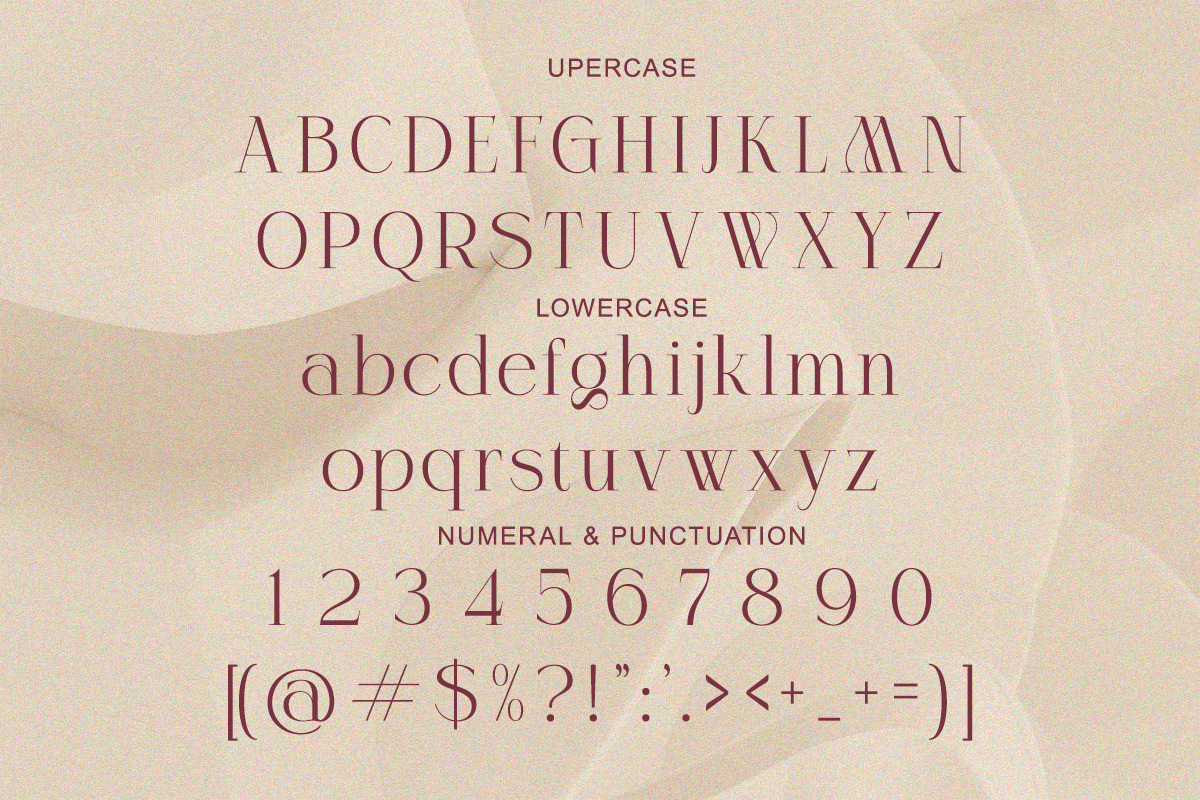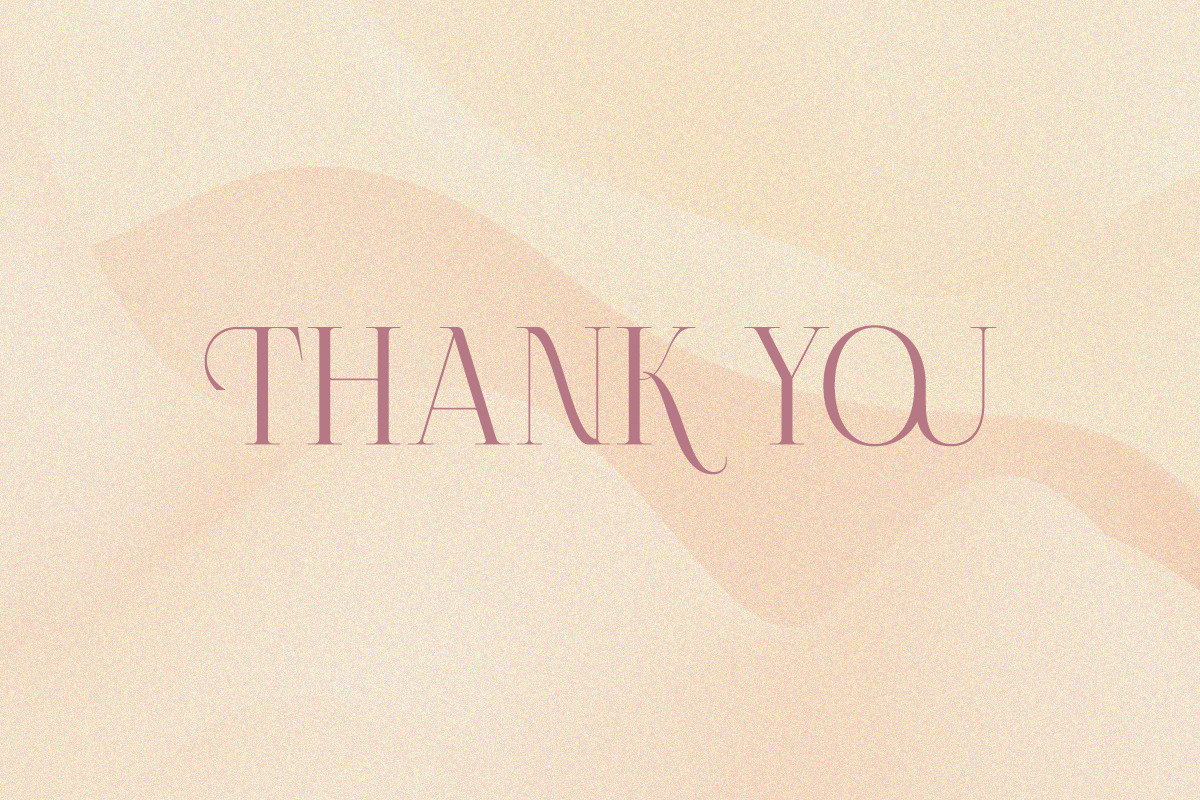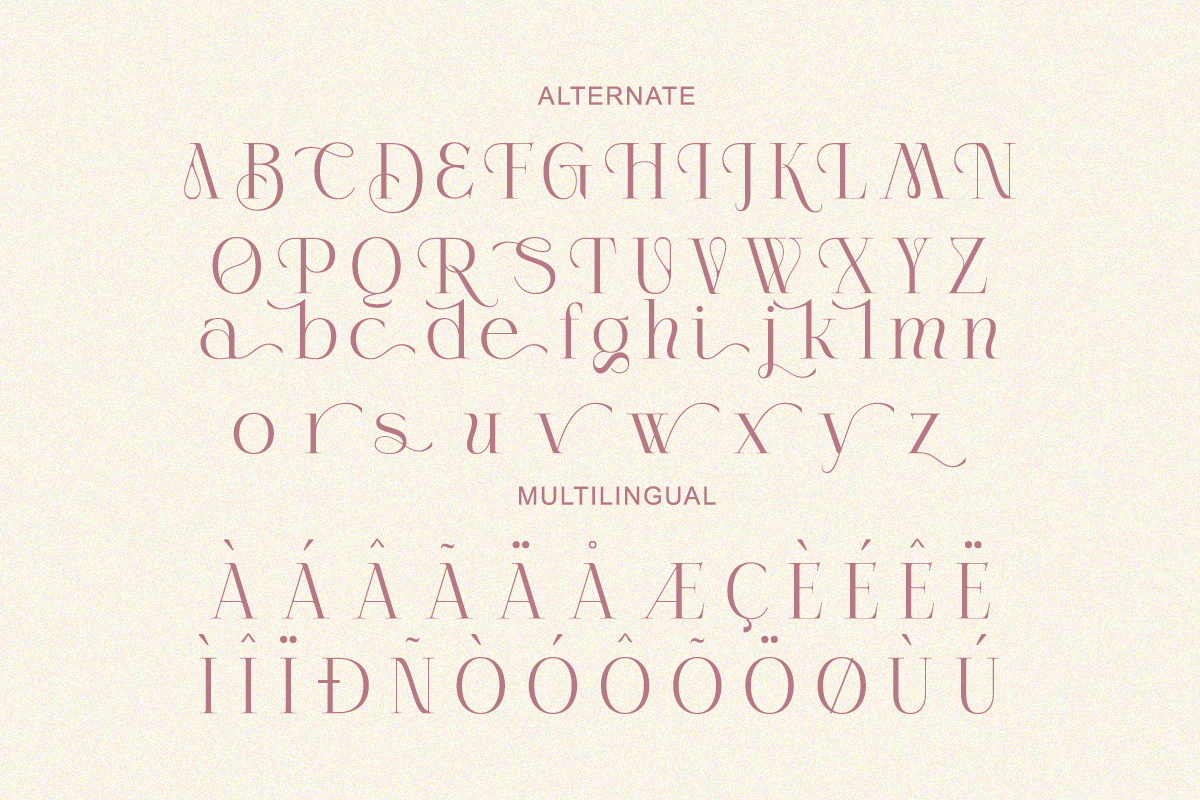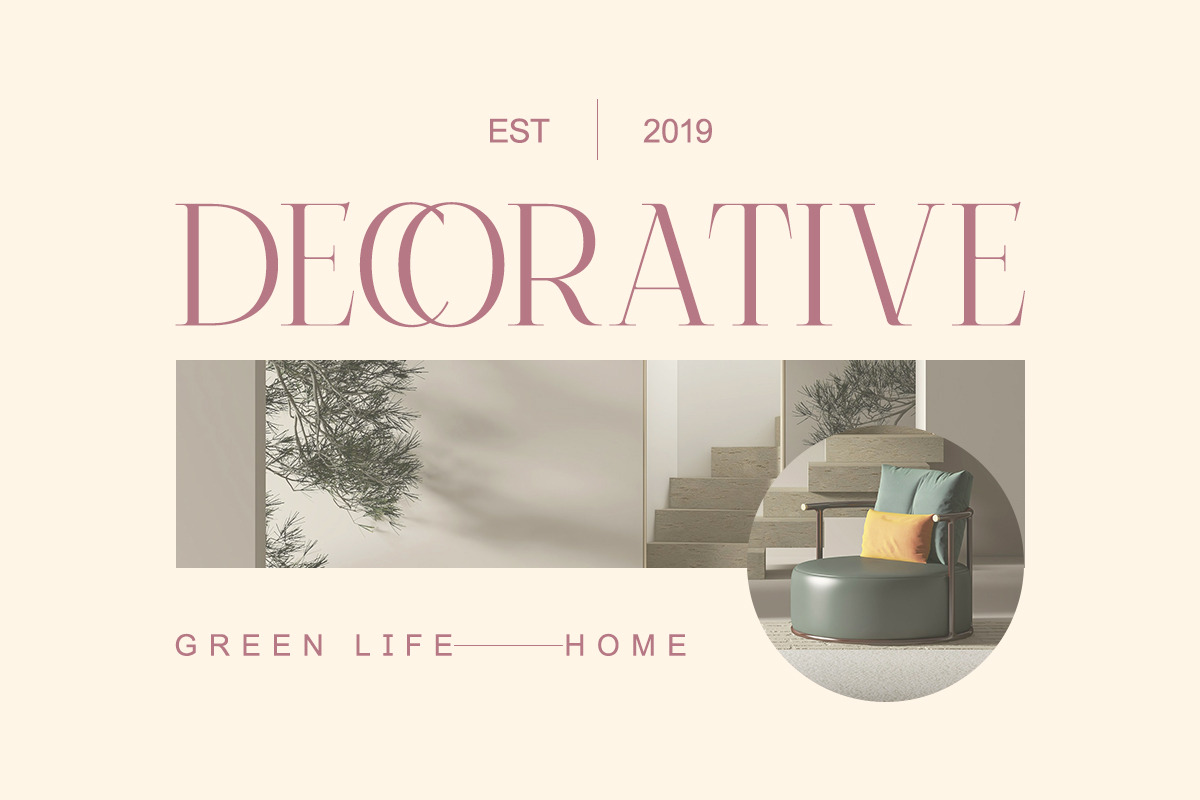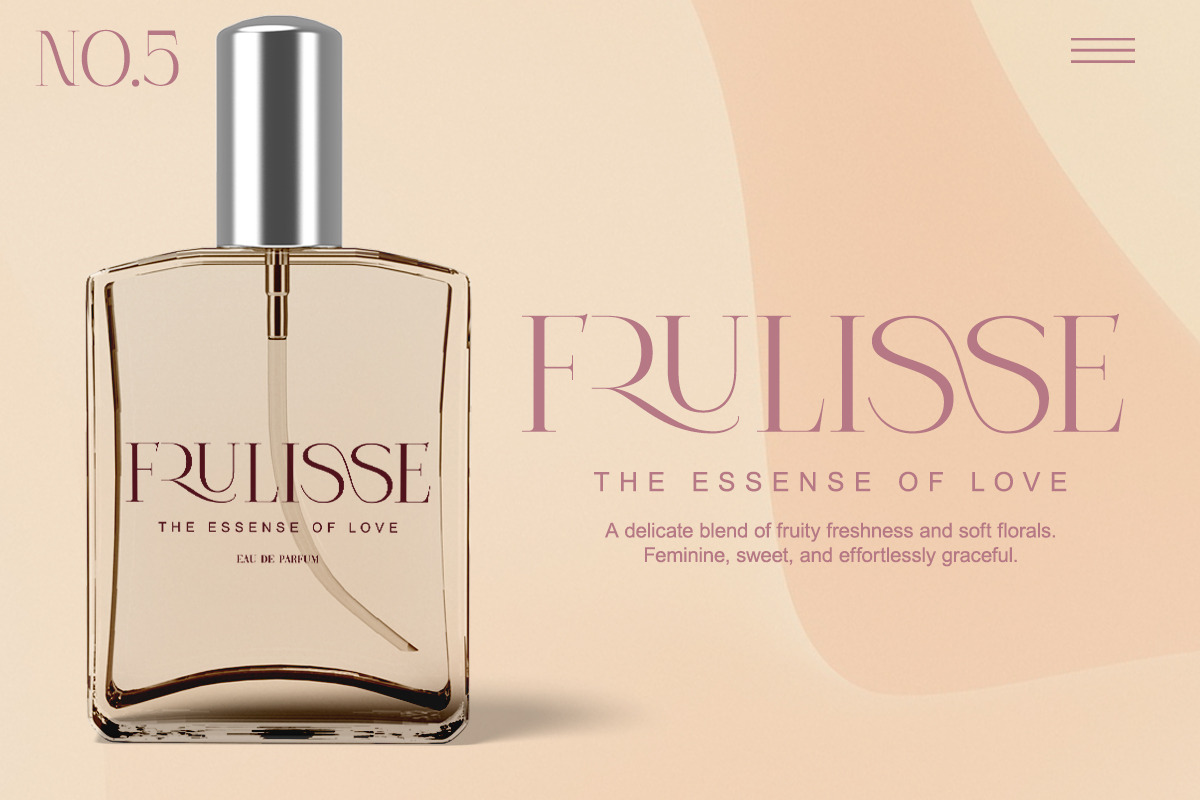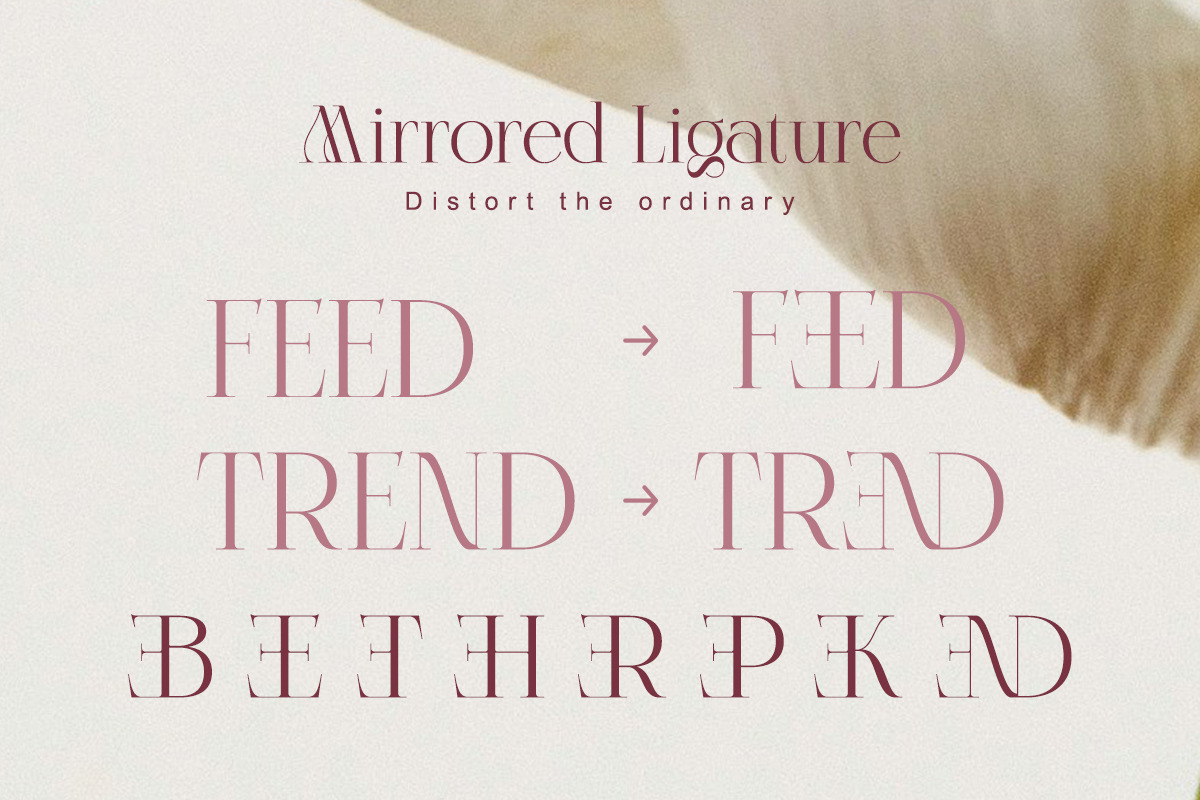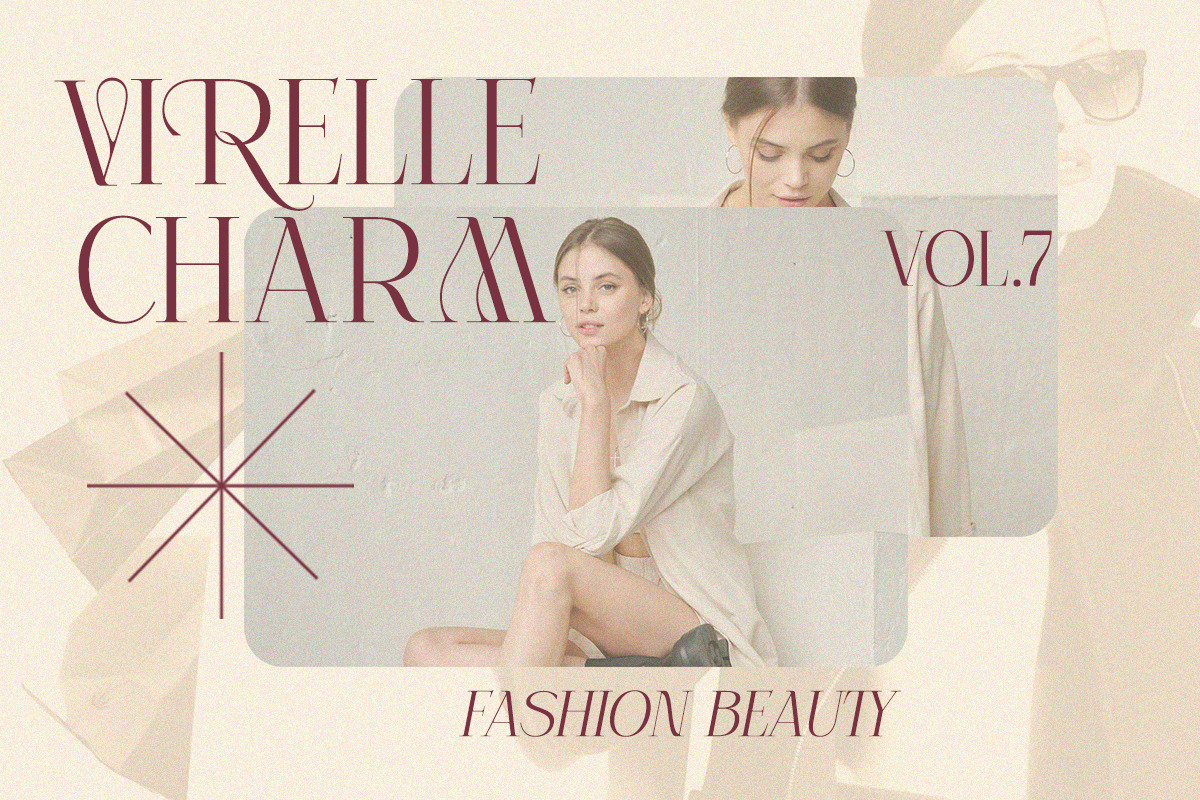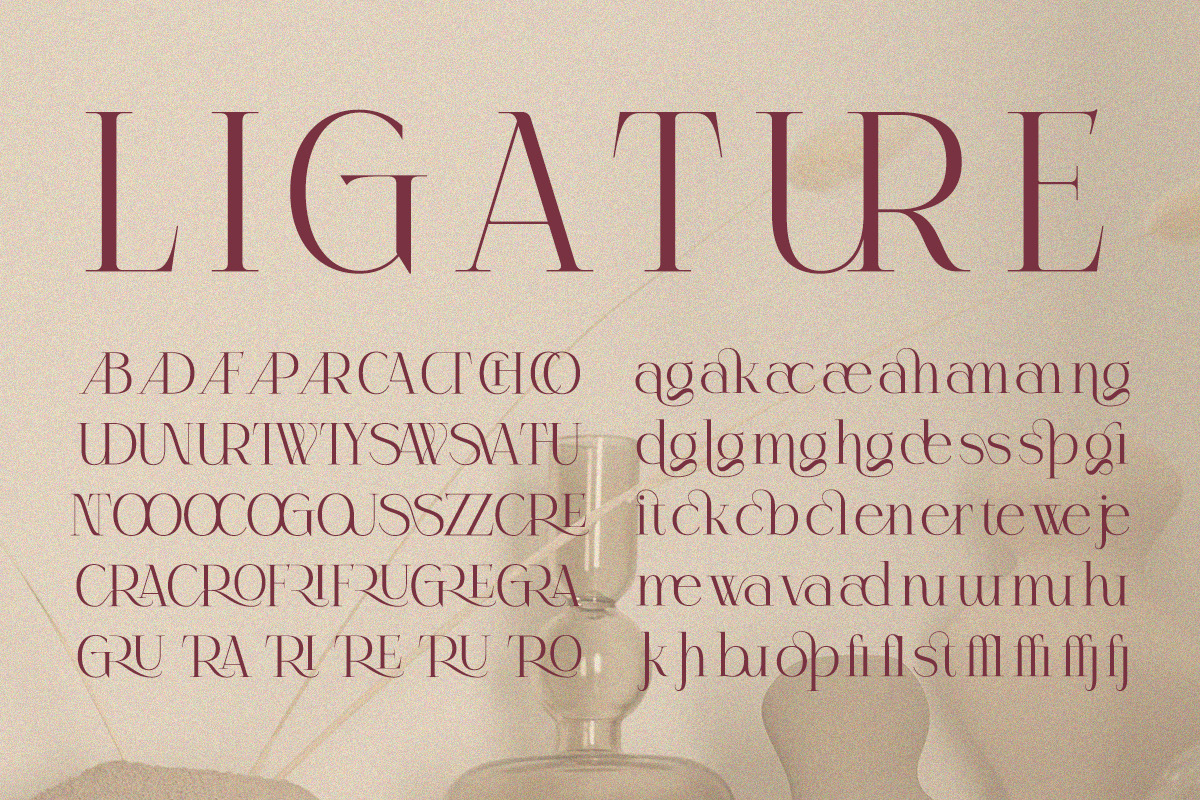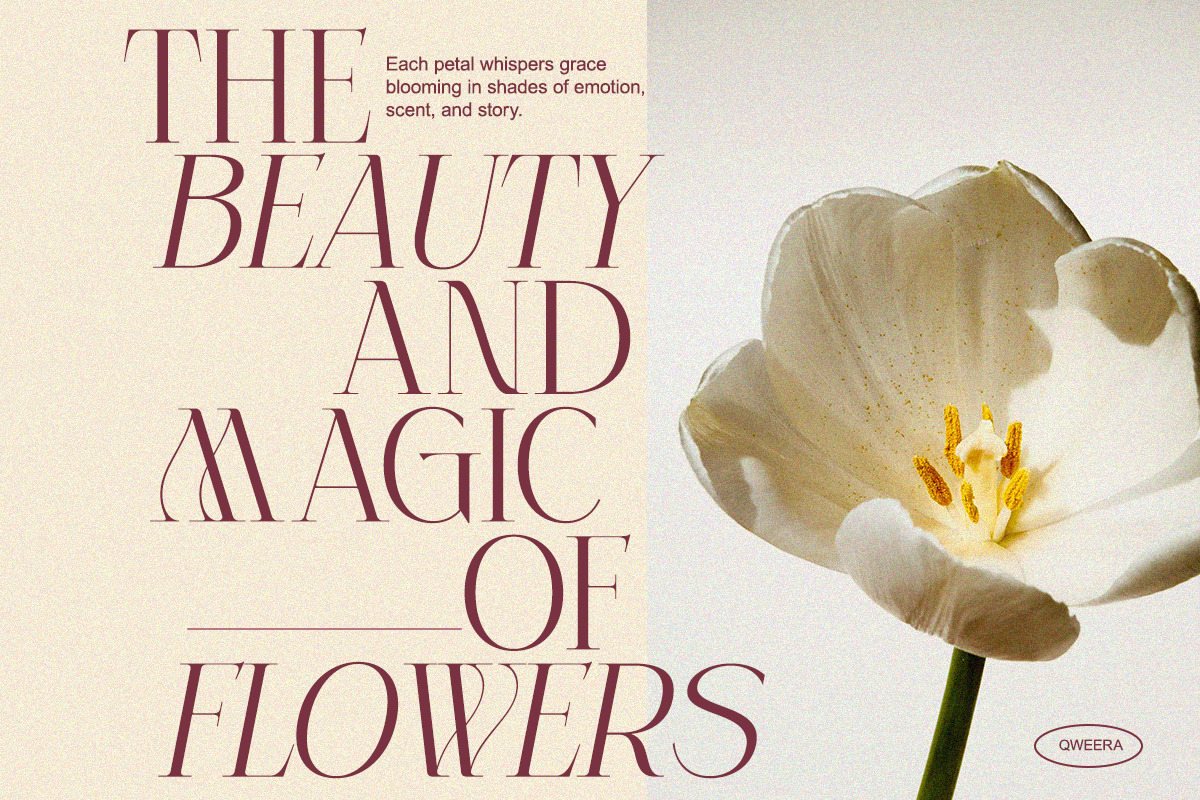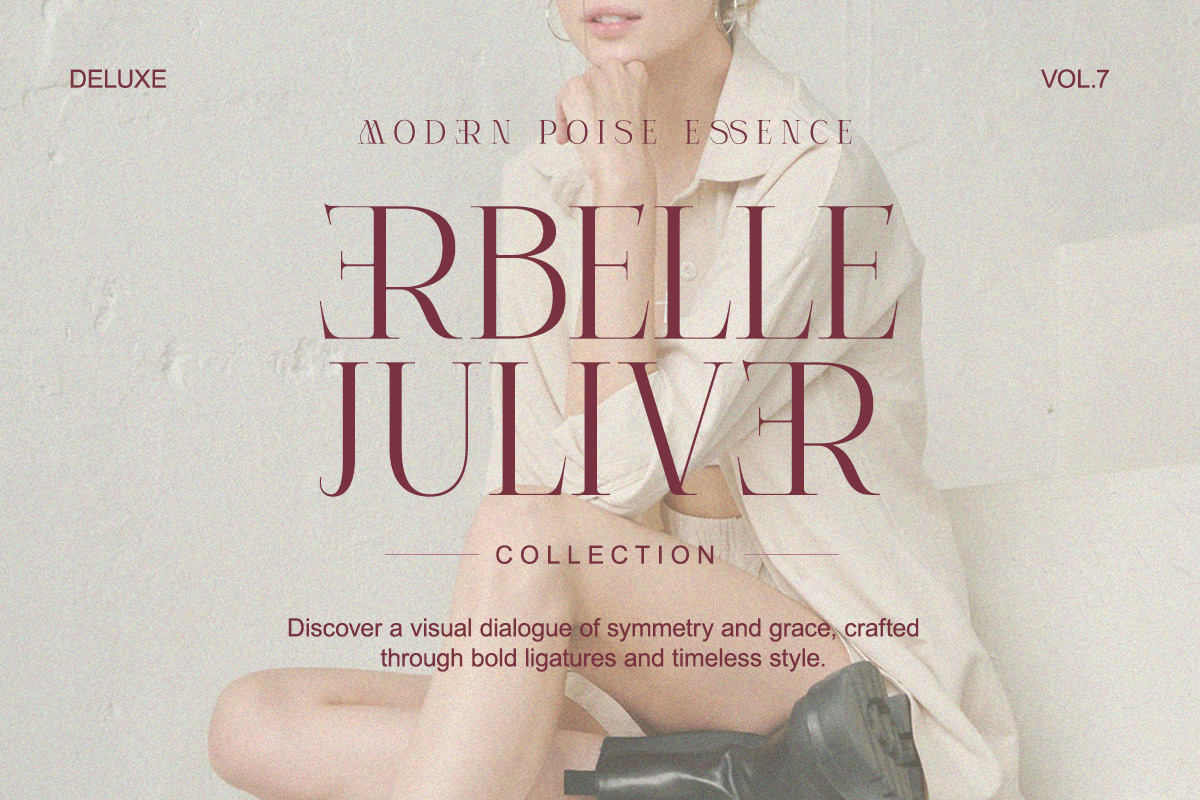
Celestira - Modern Elegant Luxury
Celestira is a modern serif typeface that merges classic elegance with graceful curves and stylish ligatures.
Its refined details and delicate shapes make it a standout choice for luxury branding, editorial headlines, wedding designs, and high-end packaging. Designed to exude sophistication and softness, Celestira brings visual poetry to your creative projects with every character it offers.
A perfect font for those who seek elegance, femininity, and modern luxury in one seamless blend.
- Regular & Italic
- Numerals & punctuations
- Stylish alternates
- Elegant ligatures
- Luxury fashion branding
- Editorial magazine layouts
- Elegant wedding stationery
- Beauty product packaging
- Feminine logo designs
- Social media graphics with classy vibe
Let Celestira elevate your visuals with poetic luxury and modern charm.